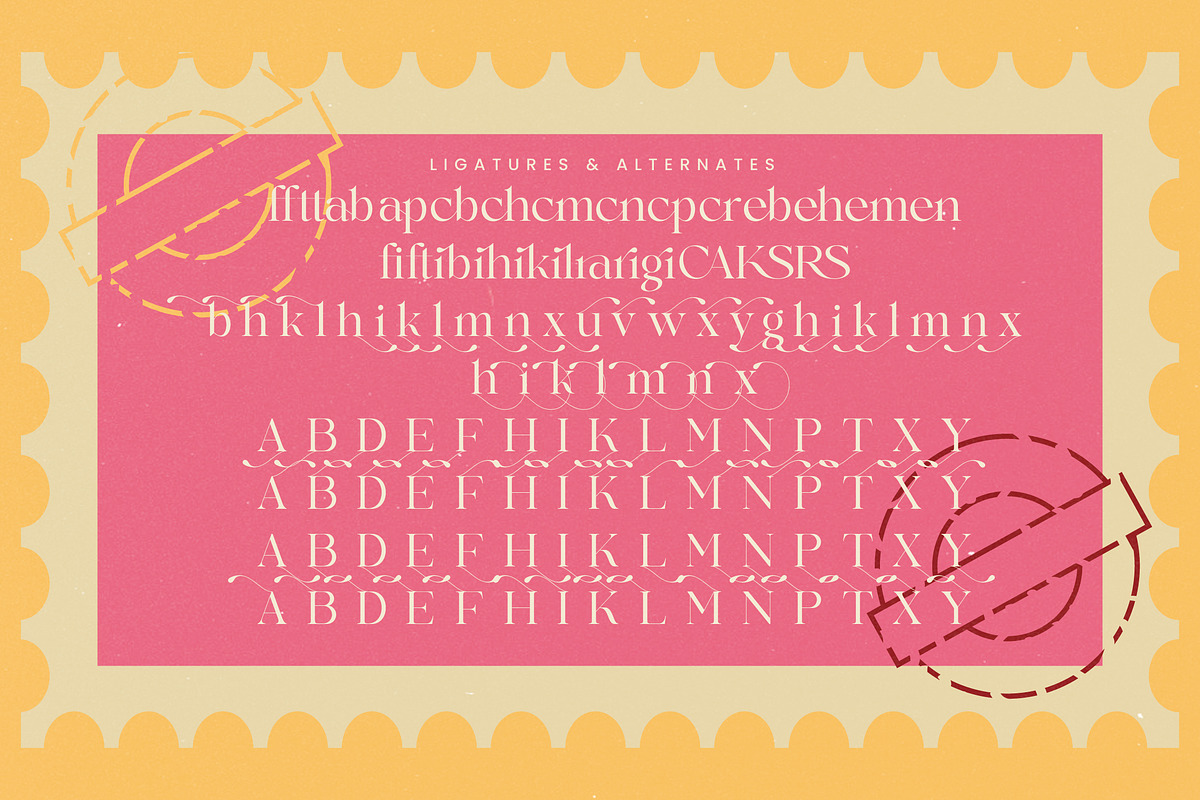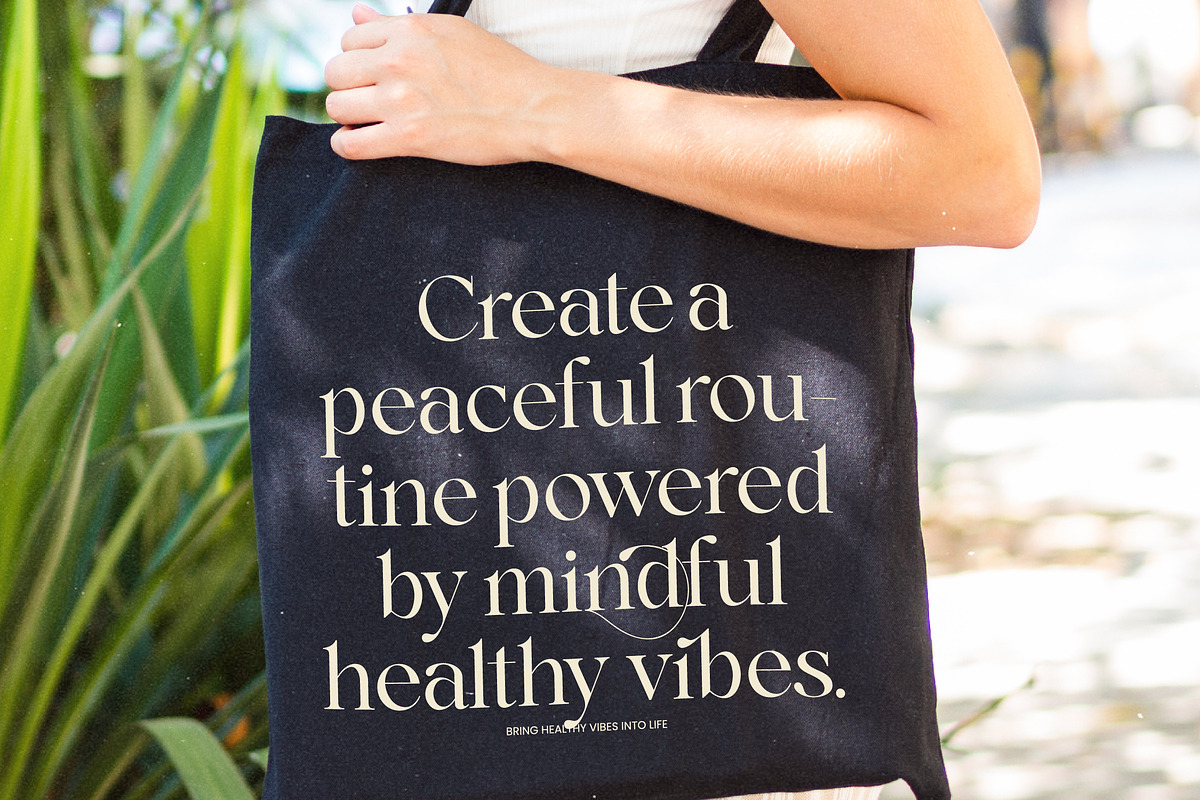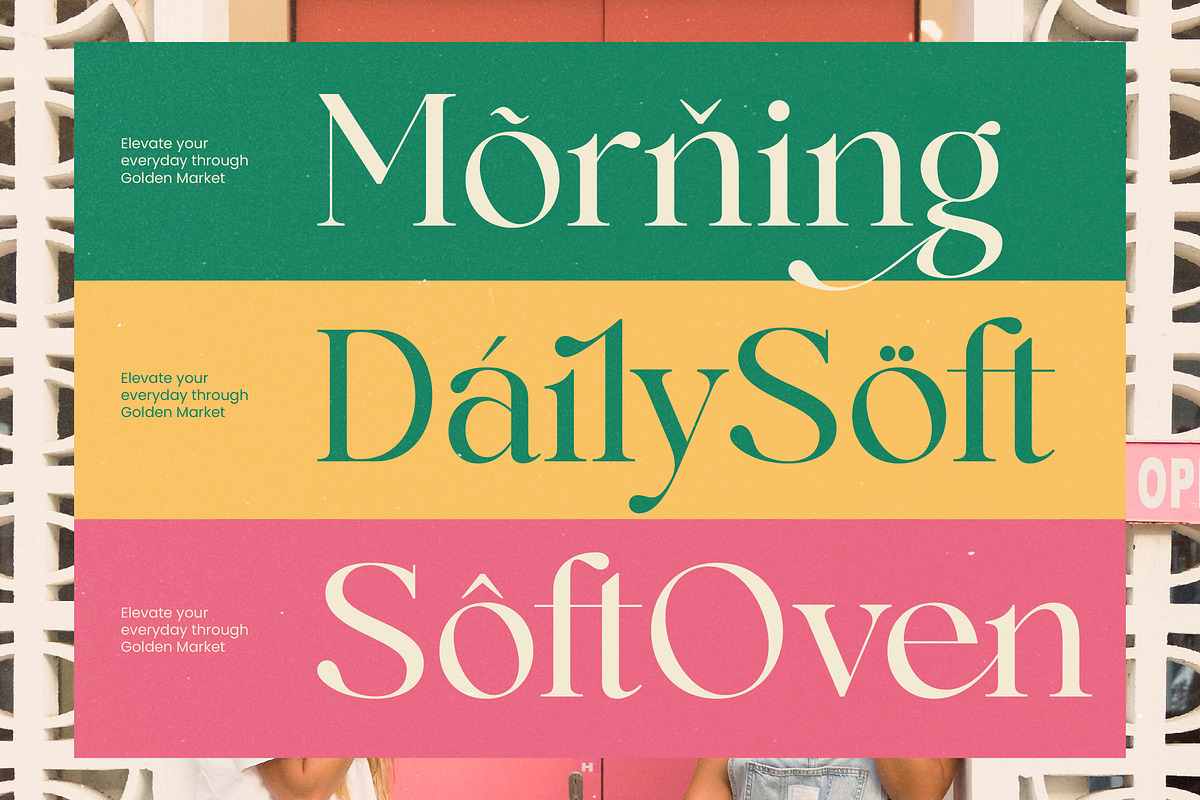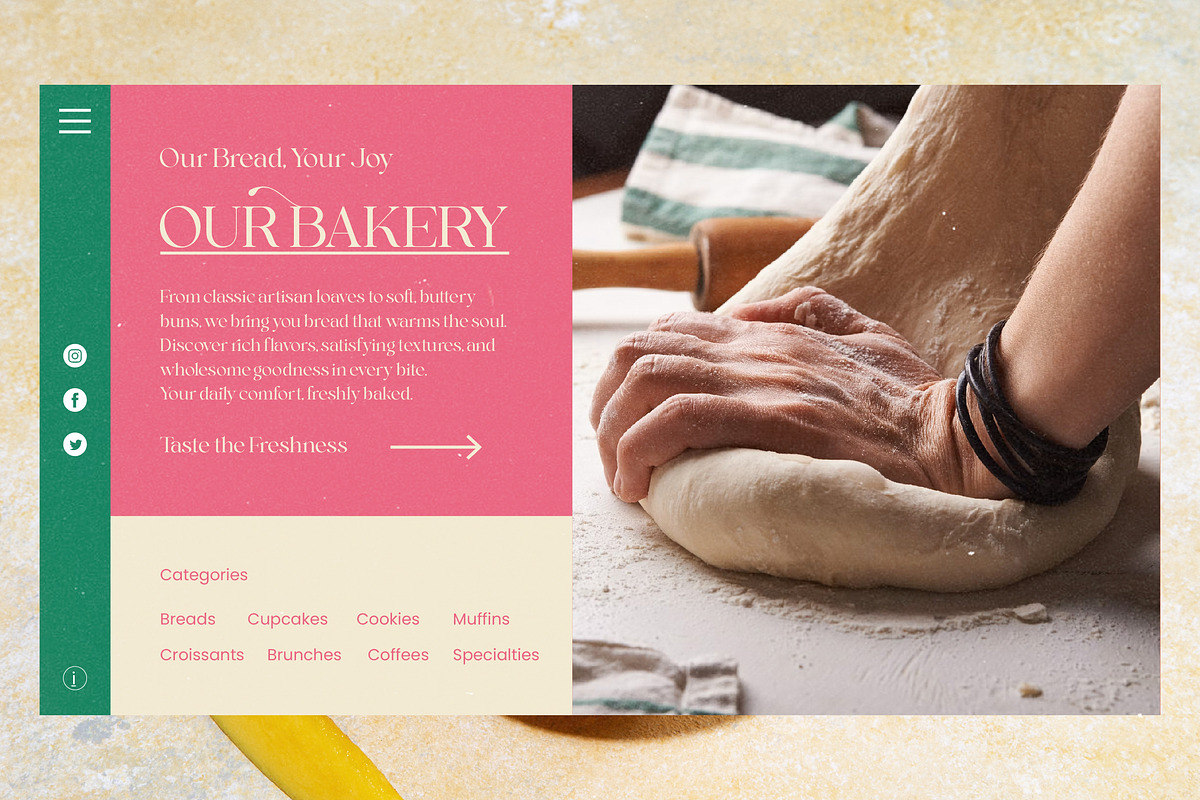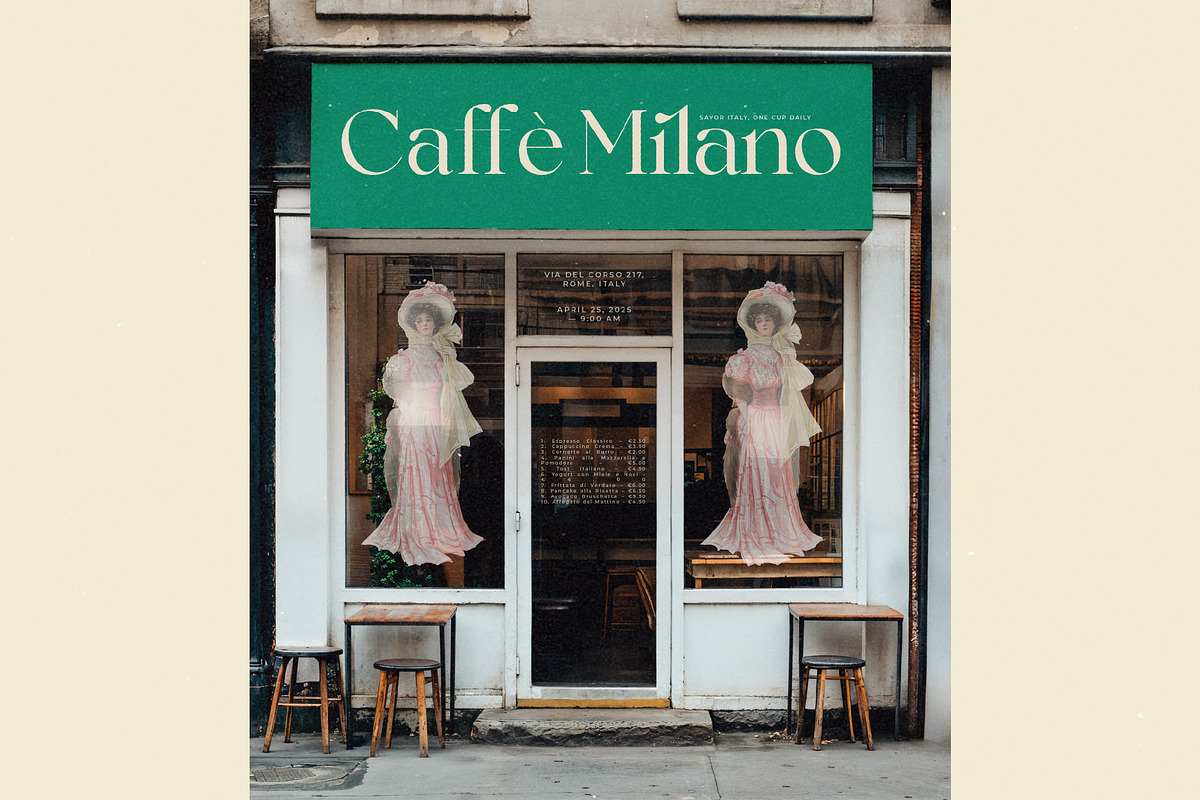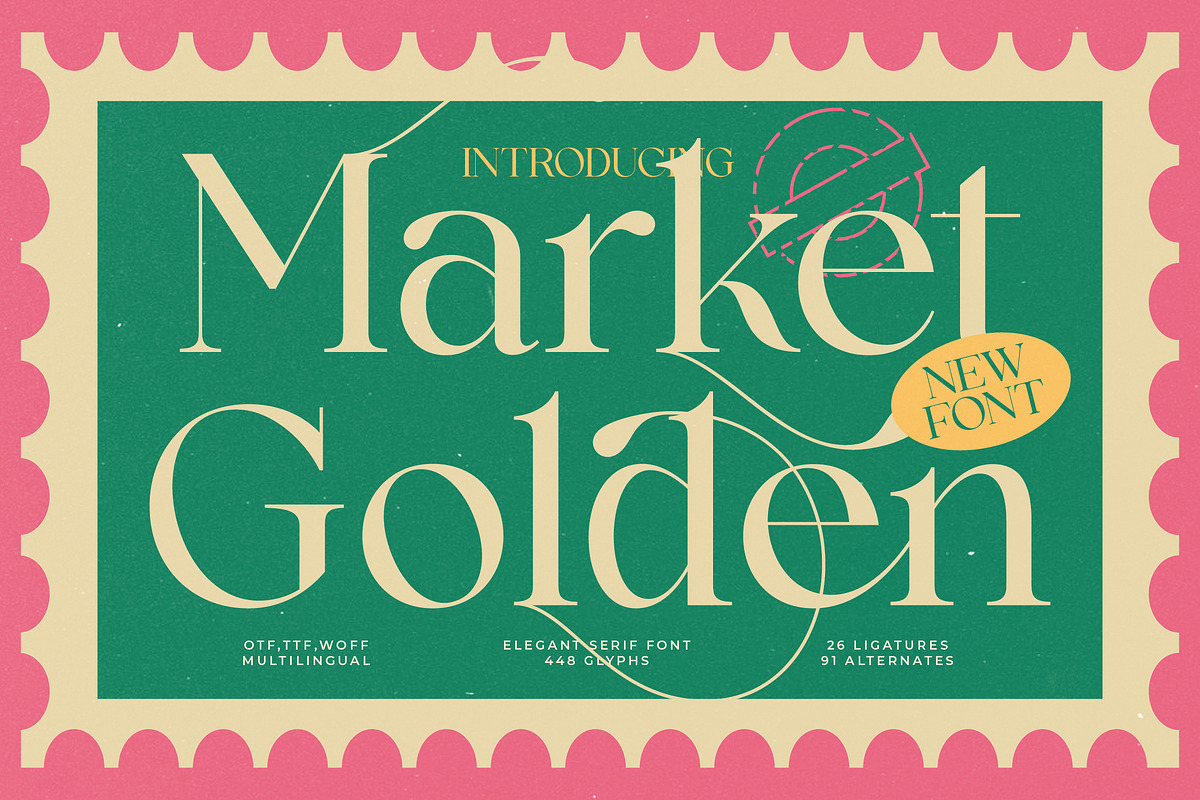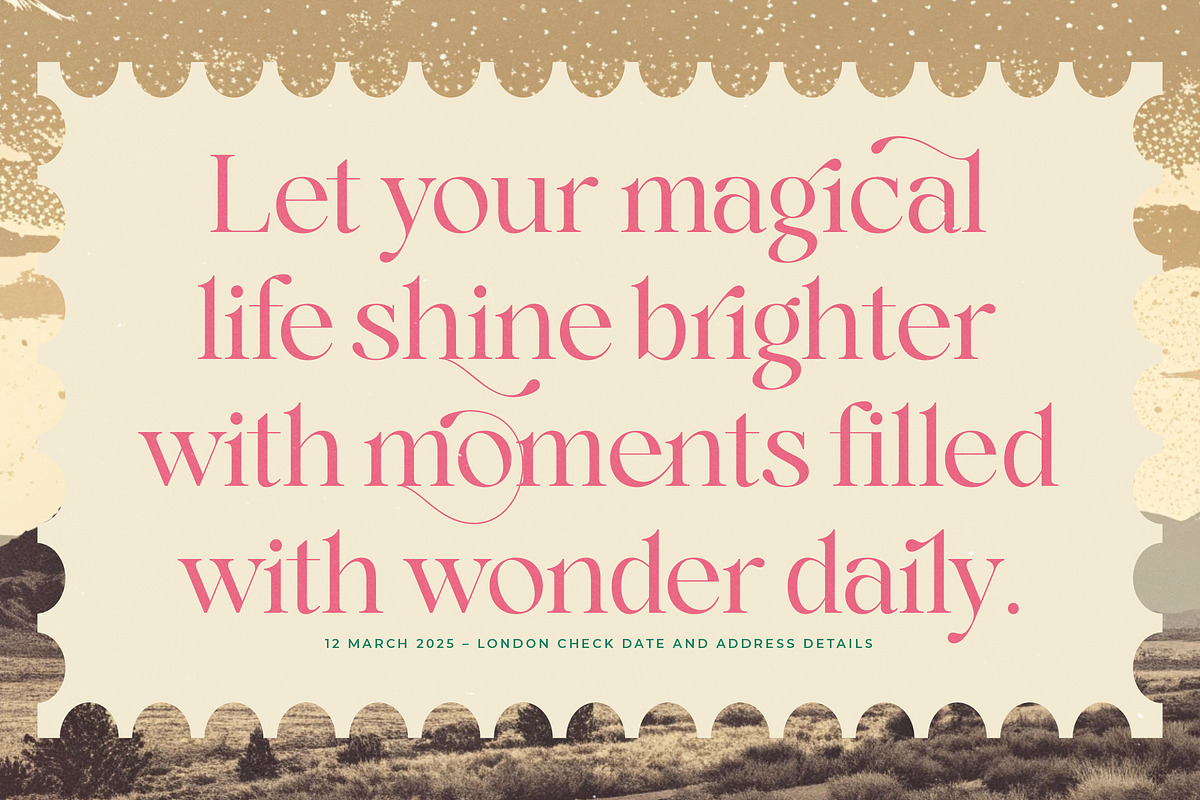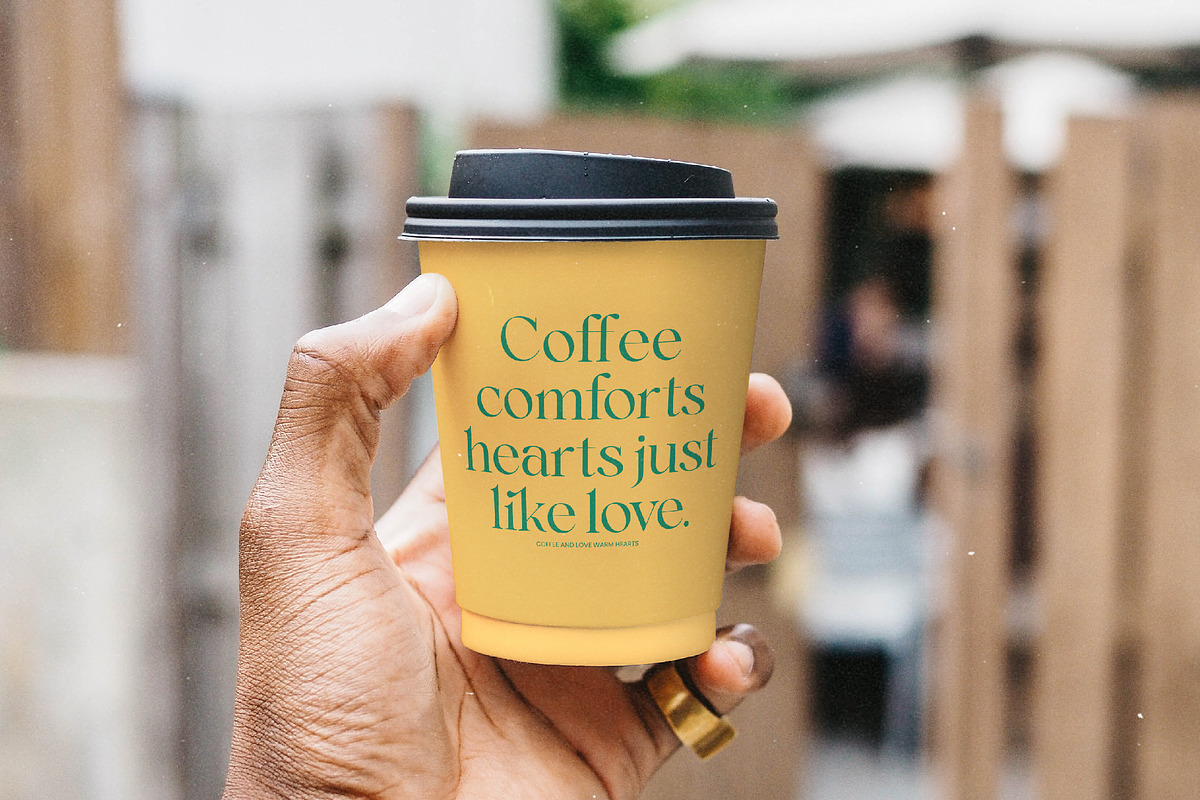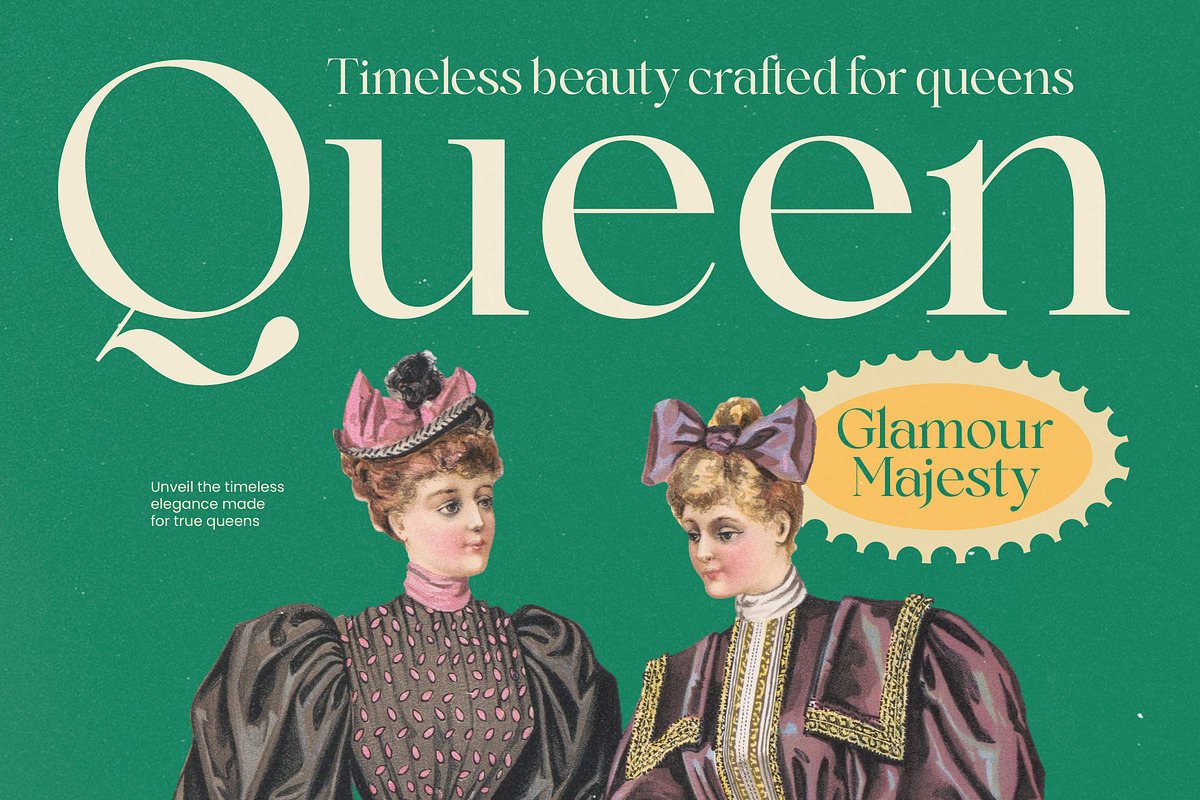
Market Golden Elegant Serif Font
Market Golden is a masterclass in sophisticated design, blending timeless elegance with a contemporary edge to elevate any creative project. It captures the essence of refined beauty, ensuring that every character serves as a bold statement of style and grace.
Inspired by the classic charm of vintage postage stamps and high-end editorial layouts, this typeface evokes a sense of nostalgic luxury. Its balanced proportions and artistic flourishes transport your designs to a world of curated aesthetics and professional polish with ease.
This modern serif display typeface commands attention through its luxury typography and high-contrast serif strokes. It is the ultimate editorial font for creators seeking a high branding impact that feels both established and remarkably fresh for today's market.
Tapping into the current modern serif trend, this typeface is perfect for designers looking for editorial display fonts that truly stand out. Its character-driven typography ensures your work remains at the forefront of contemporary design movements and visual storytelling.
Perfectly suited for high-end logo design and comprehensive branding suites, it excels in premium editorial layouts and luxury packaging solutions. It also brings a touch of class to boutique wedding invitations and high-street fashion lookbooks.
This comprehensive package includes a vast library of ligatures and alternates to customize your text, alongside beautiful decorative swashes. It offers full multilingual support with international characters to ensure global accessibility for your unique creative vision.
Ligatures and Alternative Style Stylistic Set